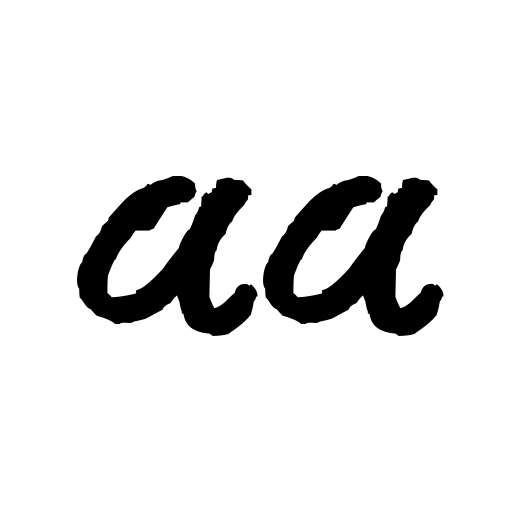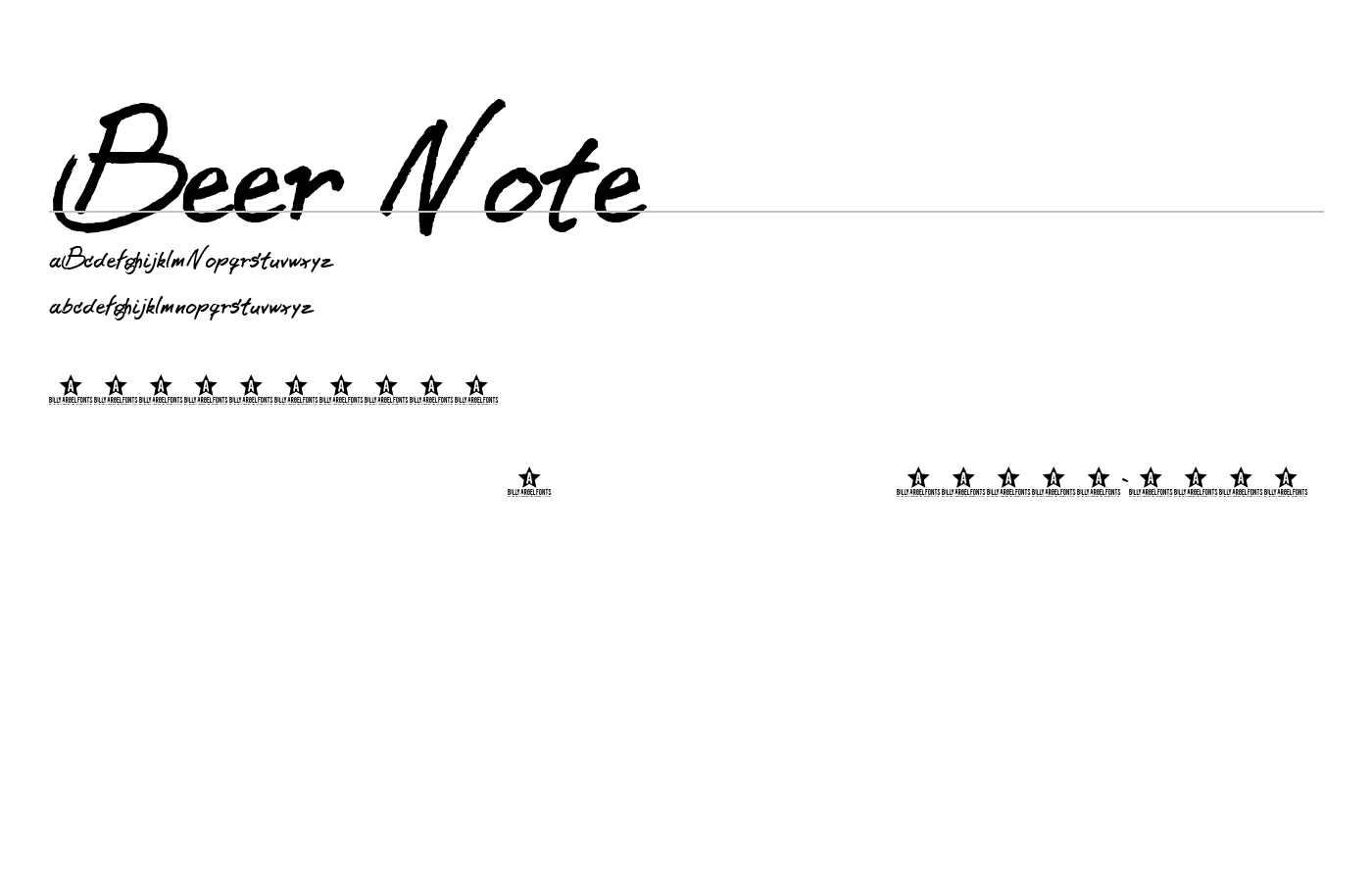
Beer Note is a casual, handwritten script font with a natural, brush-like texture that feels dynamic and personal. Its medium weight and fluid strokes give it an approachable, lively character, making it ideal for branding, packaging, or creative projects that aim for a friendly and authentic vibe. This font works especially well where a handwritten, informal style is desired, such as craft beer labels, café menus, or lifestyle branding.
BEER NOTE Font
About BEER NOTE Font